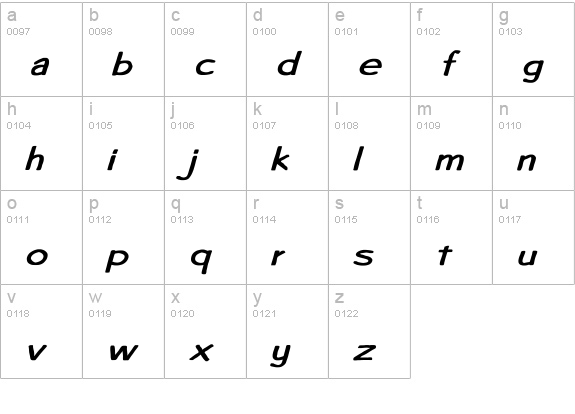
Diego1 Bold Italic is a strong, high-contrast, italic variant in the Diego1 typeface family \xE2\x80\x94 well suited to headlines, attention-grabbing titles, and strong calls-to-action.
Diego1 Bold Italic is a striking and dynamic font that exudes confidence and energy. Its bold strokes and italicized design make it perfect for creating eye-catching headlines and attention-grabbing designs. Whether used in print or digital media, this font commands attention and adds a touch of sophistication to any project. The best part is that Diego1 Bold Italic is available for free download at FontsMarket.com. This means that you can easily access this stylish and versatile font to elevate your designs without any cost. Don't miss out on the opportunity to enhance your work with the bold and expressive Diego1 Bold Italic font - download it now for free at FontsMarket.com!